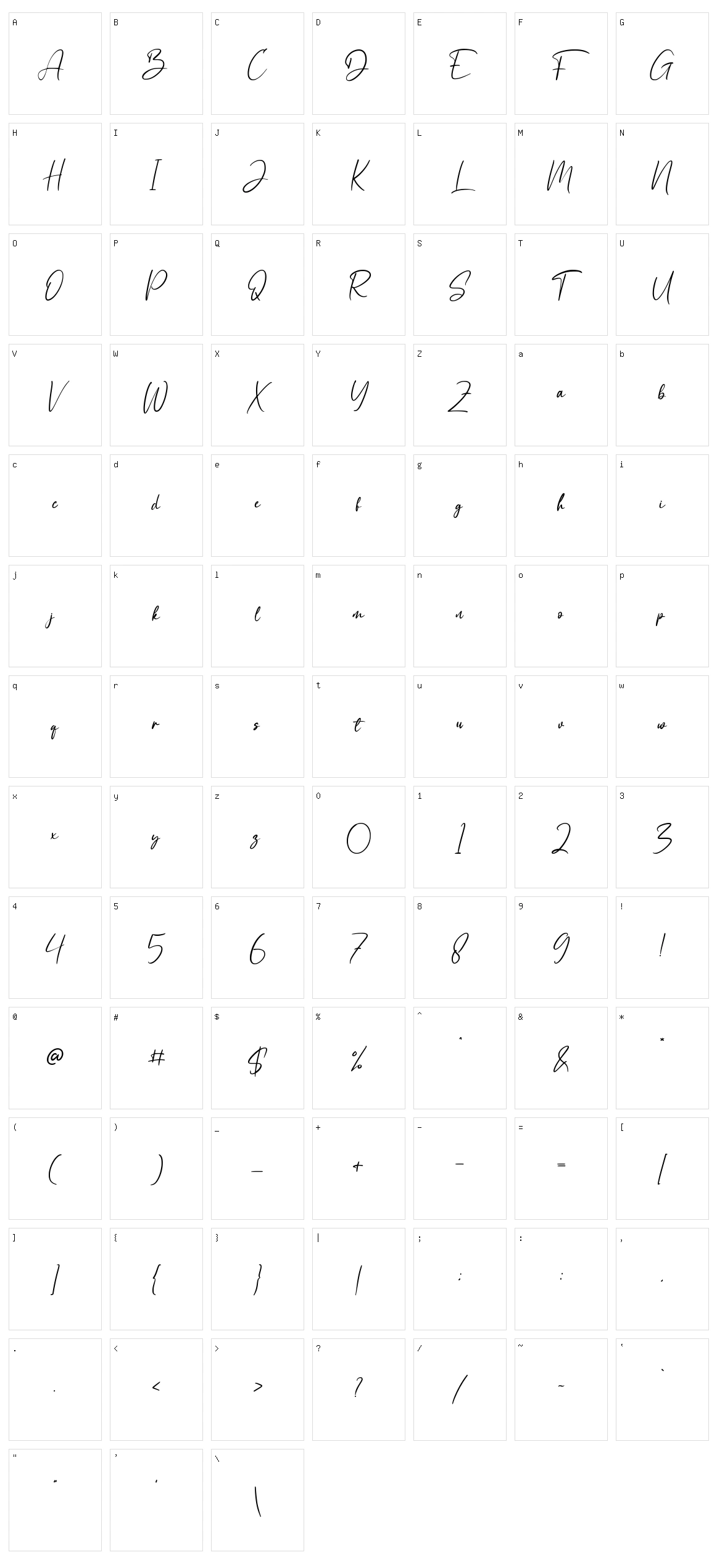
The free font Sandy Lailyatir is carefully designed by StringLabs Creative Studio, showcasing a thoughtful balance of creativity and usability and falls under the Script font style. When you download the ZIP file, it contains only 81.06 KB of font files, making it lightweight and quick to download. Please review the license details below to understand permitted usage and distribution rights. If license information is not available, we recommend using this font for personal projects only or contacting the author directly for commercial usage permissions.